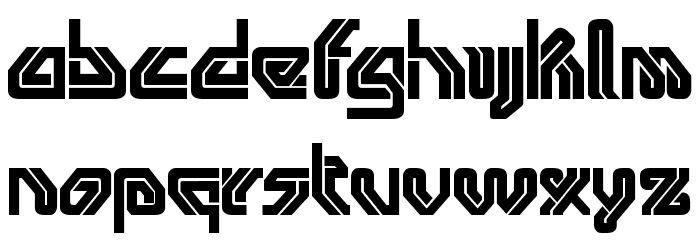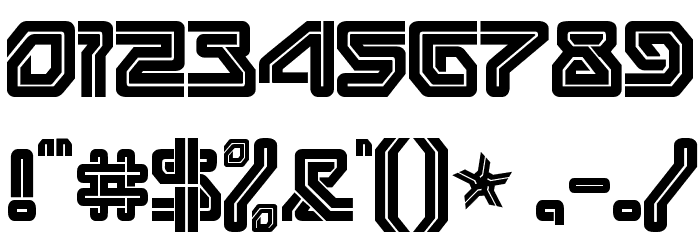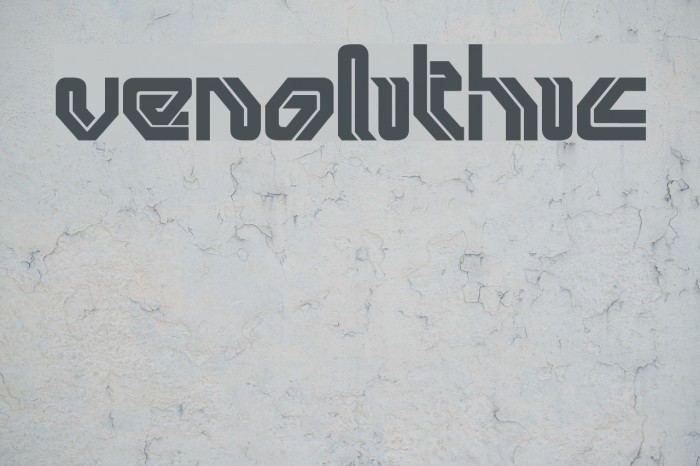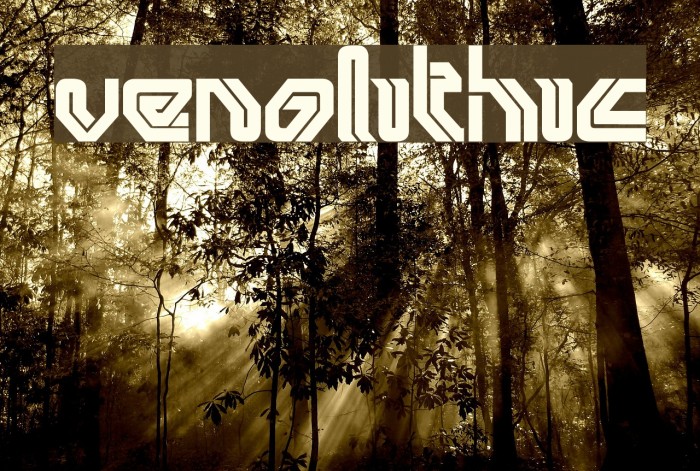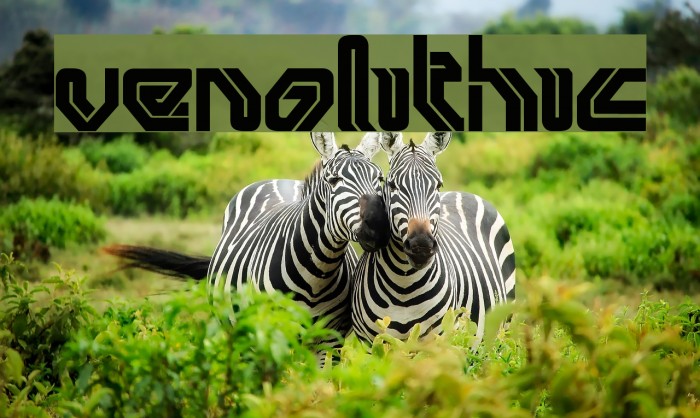
venolithic Font
This font features a bold, geometric design with a futuristic and industrial feel. The characters are constructed with thick, angular lines and sharp edges, creating a sense of strength and modernity. The uppercase and lowercase letters maintain a consistent style, with a unique interplay of negative space that adds to the font's distinctiveness. Numbers and special characters follow the same design principles, ensuring a cohesive look across all elements. The font's boldness and striking appearance make it ideal for attention-grabbing designs.
A bold, geometric font with a futuristic and industrial aesthetic.
- Proposed Projects: Ideal for sci-fi themed projects, technology branding, video game titles, and posters.